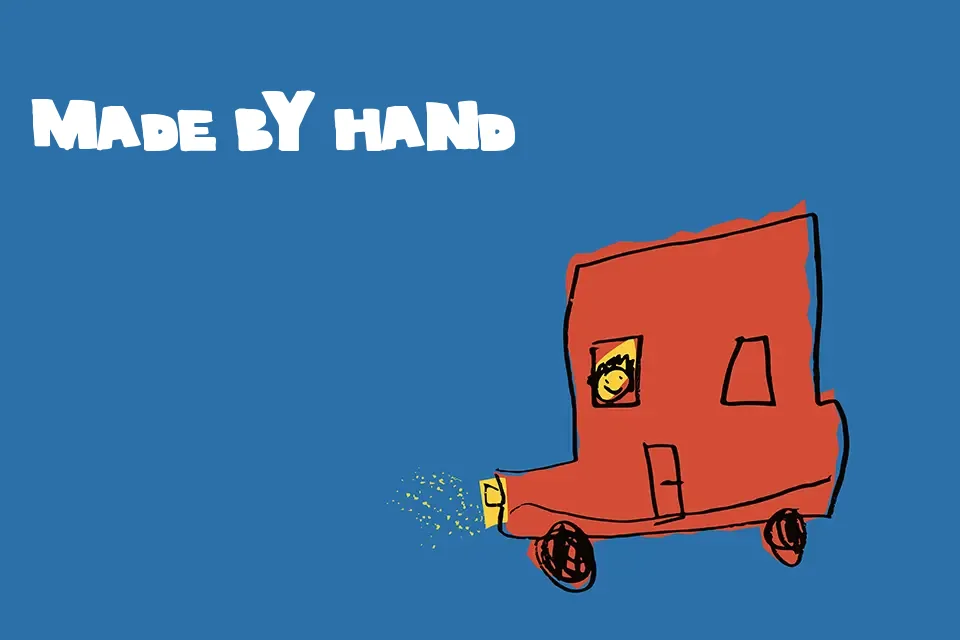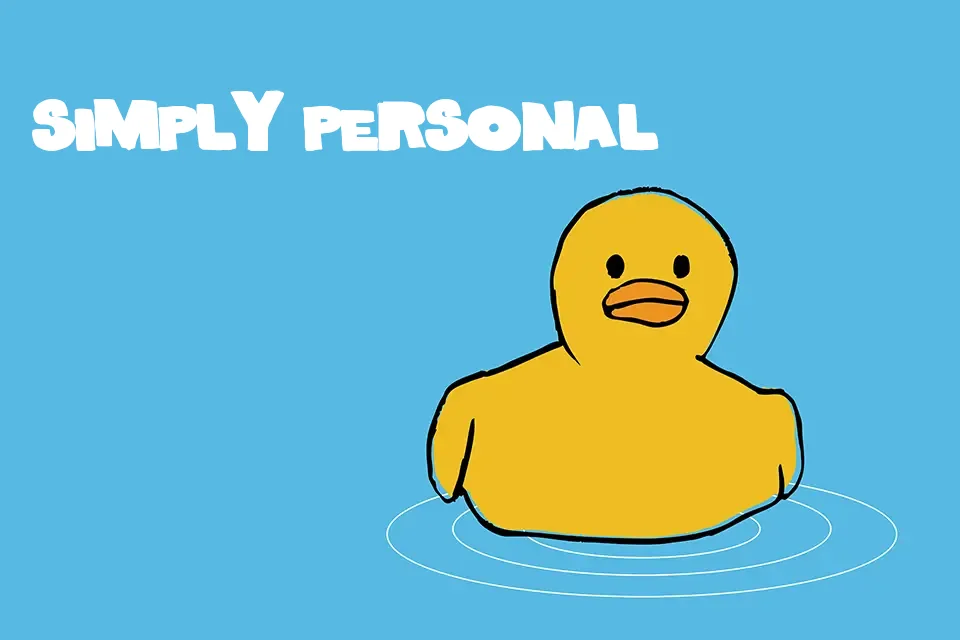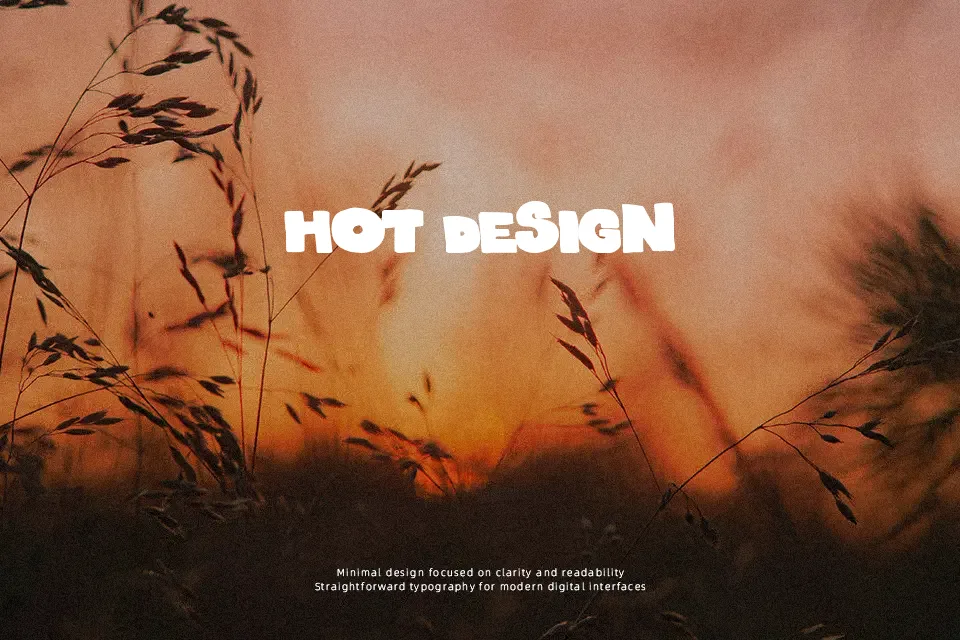
Solid Marker Font
Solid Marker Font presents thick, energetic strokes that capture the look of a saturated felt-tip marker. The letterforms display uniform weight throughout their structure, paired with slightly irregular contours and blunt endings that reinforce a casual tone. Spacing remains relatively tight, which helps compact words into cohesive visual units at large scales. While the design delivers strong impact in merchandise graphics and festival banners, dense letter construction limits legibility in small captions. The heavy stroke weight tends to clog counter spaces when rendered below headline sizes, making the typeface unsuited for sustained reading environments.
Children’s event posters
Comic book titles
Youth apparel graphics
Snack food packaging
Continuous body text
Formal corporate stationery
Small mobile interface labels
Dense technical manuals